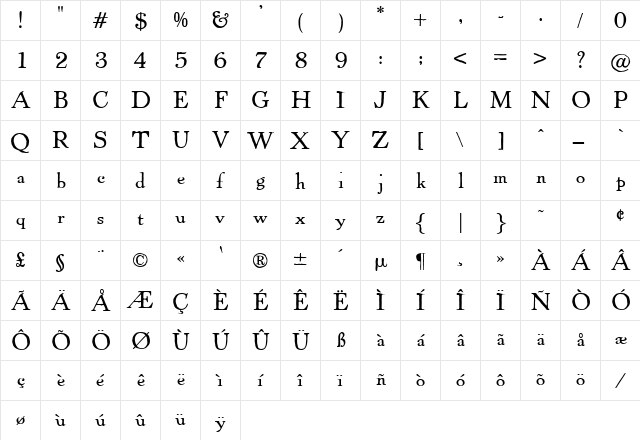
Powhatten Regular
Design Context for Powhatten Typeface
Powhatten offers clean, dependable letterforms without strong stylistic allegiance, making it a practical choice for designers who need flexibility.